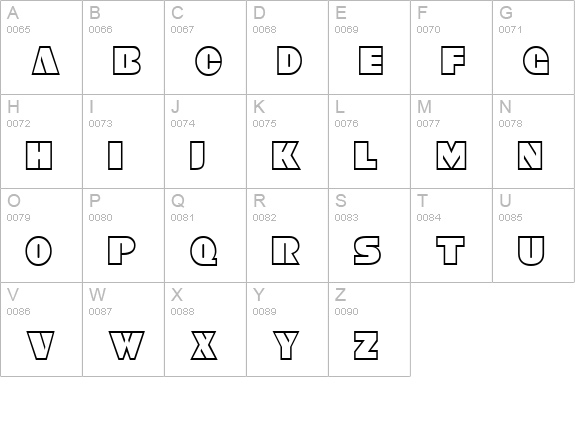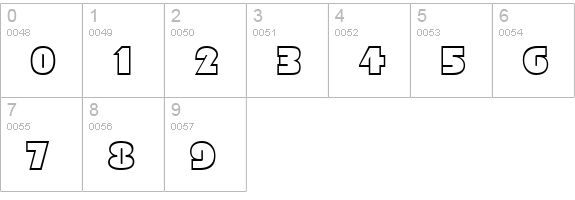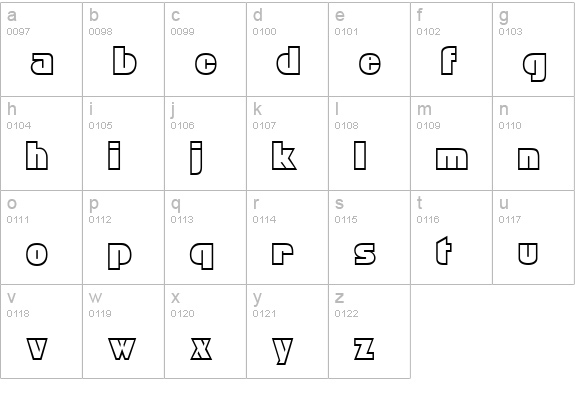
Bleucher Regular is the standard, neutral variant in the Bleucher typeface family \xE2\x80\x94 well suited to general body text, paragraphs, and standard typographic work.
Bleucher Regular font is a classic and timeless typeface that exudes elegance and sophistication. With its clean lines and balanced proportions, this font is perfect for adding a touch of refinement to any design project. The versatility of Bleucher Regular makes it suitable for a wide range of applications, from branding and packaging to editorial and web design. What sets Bleucher Regular apart is not only its striking aesthetic appeal but also its accessibility. This font is available for free download at FontsMarket.com, making it a convenient choice for designers looking to enhance their work without breaking the bank. Whether you're crafting a logo, designing a website, or creating a print layout, Bleucher Regular is sure to elevate your projects with its timeless charm and effortless style.